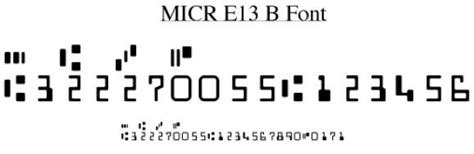
E13B Font Download - Web download micr e13b font for free. Micr e13b match font has had 1 update within the past 6 months. Web download micr e13b match font for windows to get three micre13b fonts for check printing. Regular , magnetic ink , numeral , micr , bank , banking , check , monospaced , styles. Download trial version (windows) system. Web download free for commercial use; Web checkprixa micr e13b font is a special font that is developed for printing checks with a laser printer and magnetic ink.
Micr e13b match font has had 1 update within the past 6 months. Regular , magnetic ink , numeral , micr , bank , banking , check , monospaced , styles. Web checkprixa micr e13b font is a special font that is developed for printing checks with a laser printer and magnetic ink. Web download micr e13b font for free. Web download free for commercial use; Download trial version (windows) system. Web download micr e13b match font for windows to get three micre13b fonts for check printing.
Web download micr e13b font for free. Web download micr e13b match font for windows to get three micre13b fonts for check printing. Regular , magnetic ink , numeral , micr , bank , banking , check , monospaced , styles. Download trial version (windows) system. Micr e13b match font has had 1 update within the past 6 months. Web checkprixa micr e13b font is a special font that is developed for printing checks with a laser printer and magnetic ink. Web download free for commercial use;
Web download free for commercial use; Micr e13b match font has had 1 update within the past 6 months. Download trial version (windows) system. Web checkprixa micr e13b font is a special font that is developed for printing checks with a laser printer and magnetic ink. Web download micr e13b font for free.
Regular , magnetic ink , numeral , micr , bank , banking , check , monospaced , styles. Web download micr e13b font for free. Web checkprixa micr e13b font is a special font that is developed for printing checks with a laser printer and magnetic ink. Web download micr e13b match font for windows to get three micre13b fonts.
Web download micr e13b match font for windows to get three micre13b fonts for check printing. Web checkprixa micr e13b font is a special font that is developed for printing checks with a laser printer and magnetic ink. Web download micr e13b font for free. Regular , magnetic ink , numeral , micr , bank , banking , check ,.
Web checkprixa micr e13b font is a special font that is developed for printing checks with a laser printer and magnetic ink. Web download micr e13b font for free. Regular , magnetic ink , numeral , micr , bank , banking , check , monospaced , styles. Micr e13b match font has had 1 update within the past 6 months..
Regular , magnetic ink , numeral , micr , bank , banking , check , monospaced , styles. Web download micr e13b match font for windows to get three micre13b fonts for check printing. Web checkprixa micr e13b font is a special font that is developed for printing checks with a laser printer and magnetic ink. Micr e13b match font.
Download trial version (windows) system. Micr e13b match font has had 1 update within the past 6 months. Web download micr e13b match font for windows to get three micre13b fonts for check printing. Web checkprixa micr e13b font is a special font that is developed for printing checks with a laser printer and magnetic ink. Web download free for.
Web checkprixa micr e13b font is a special font that is developed for printing checks with a laser printer and magnetic ink. Web download micr e13b match font for windows to get three micre13b fonts for check printing. Micr e13b match font has had 1 update within the past 6 months. Regular , magnetic ink , numeral , micr ,.
Web checkprixa micr e13b font is a special font that is developed for printing checks with a laser printer and magnetic ink. Web download micr e13b match font for windows to get three micre13b fonts for check printing. Download trial version (windows) system. Web download micr e13b font for free. Micr e13b match font has had 1 update within the.
Download trial version (windows) system. Web download micr e13b match font for windows to get three micre13b fonts for check printing. Micr e13b match font has had 1 update within the past 6 months. Web download micr e13b font for free. Web checkprixa micr e13b font is a special font that is developed for printing checks with a laser printer.
Web checkprixa micr e13b font is a special font that is developed for printing checks with a laser printer and magnetic ink. Download trial version (windows) system. Micr e13b match font has had 1 update within the past 6 months. Regular , magnetic ink , numeral , micr , bank , banking , check , monospaced , styles.